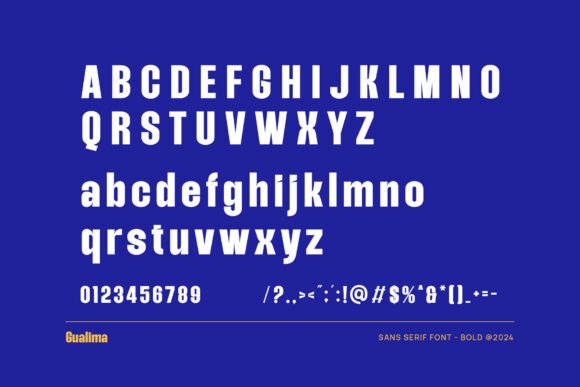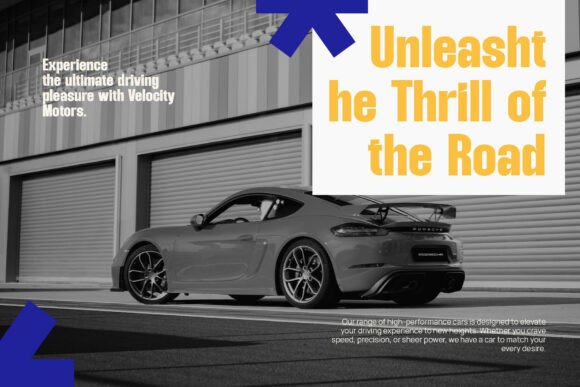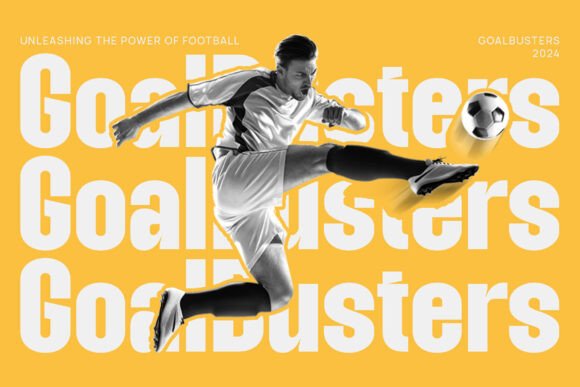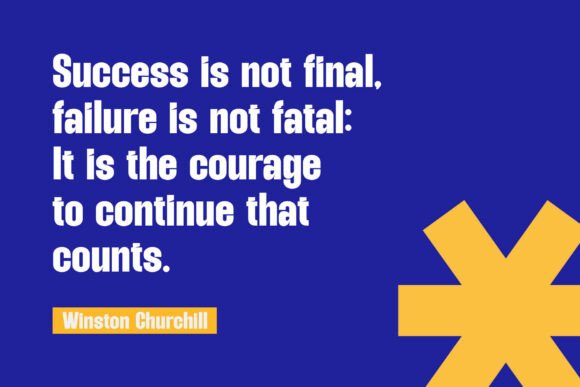
Gualima Font: Elevate Your Designs with a Bold and Assertive Sans Serif
In the world of typography, a font can make or break a design. A well-chosen font can elevate your creation, conveying the perfect tone and personality. For designers and crafters looking to add a bold and assertive touch to their work, look no further than the Gualima font. This sans serif font is an incredible asset to any font library, capable of transforming any project into a stunning masterpiece.
The Gualima Font: A Bold and Assertive Sans Serif
Gualima is a bold and assertive sans serif font, designed to make a statement. Its clean lines, geometric shapes, and confident demeanor make it perfect for a wide range of applications, from branding and advertising to packaging and digital media. Whether you’re looking to create a bold logo, a striking headline, or a compelling body of text, Gualima is up to the task.
Key Features of the Gualima Font
- Bold and Assertive: Gualima’s bold weight and assertive style make it perfect for designs that require a confident and attention-grabbing tone.
- Sans Serif: The font’s clean and minimalist sans serif design ensures that your text remains clear and legible, even at smaller sizes.
- Geometric Shapes: Gualima’s geometric shapes give it a modern and edgy feel, perfect for designs that require a bit of attitude.
- Versatile: Gualima can be used for a wide range of applications, from digital media to print materials.
Why Choose the Gualima Font?
So why choose Gualima over other fonts? Here are just a few reasons:
- Uniqueness: Gualima’s bold and assertive style sets it apart from more traditional fonts, giving your designs a unique and distinctive look.
- Legibility: Despite its bold weight, Gualima remains highly legible, even at smaller sizes.
- Flexibility: Gualima can be used for a wide range of applications, from headlines and titles to body text and captions.
- Ease of Use: Gualima is easy to use and pairs well with a variety of other fonts, making it a great addition to any font library.
How to Use the Gualima Font
So how can you use Gualima in your designs? Here are a few ideas to get you started:
- Branding: Use Gualima as a bold and assertive logo font, perfect for creating a lasting impression.
- Headlines: Gualima’s bold weight and geometric shapes make it perfect for headlines and titles.
- Packaging: Use Gualima on packaging materials, such as labels and product tags, to add a bold and eye-catching touch.
- Digital Media: Gualima can be used in digital media, such as social media graphics, videos, and presentations.
Pairing the Gualima Font with Other Fonts
One of the best things about Gualima is its ease of use with other fonts. Here are a few suggestions for pairing Gualima with other fonts:
- Montserrat: Pair Gualima with Montserrat for a modern and sophisticated look.
- Open Sans: Combine Gualima with Open Sans for a clean and professional look.
- Lato: Pair Gualima with Lato for a bold and elegant look.
In conclusion, the Gualima font is an incredible asset to any font library. Its bold and assertive sans serif design makes it perfect for a wide range of applications, from branding and advertising to packaging and digital media. With its unique style, legibility, and flexibility, Gualima is sure to elevate any design and make a lasting impression.